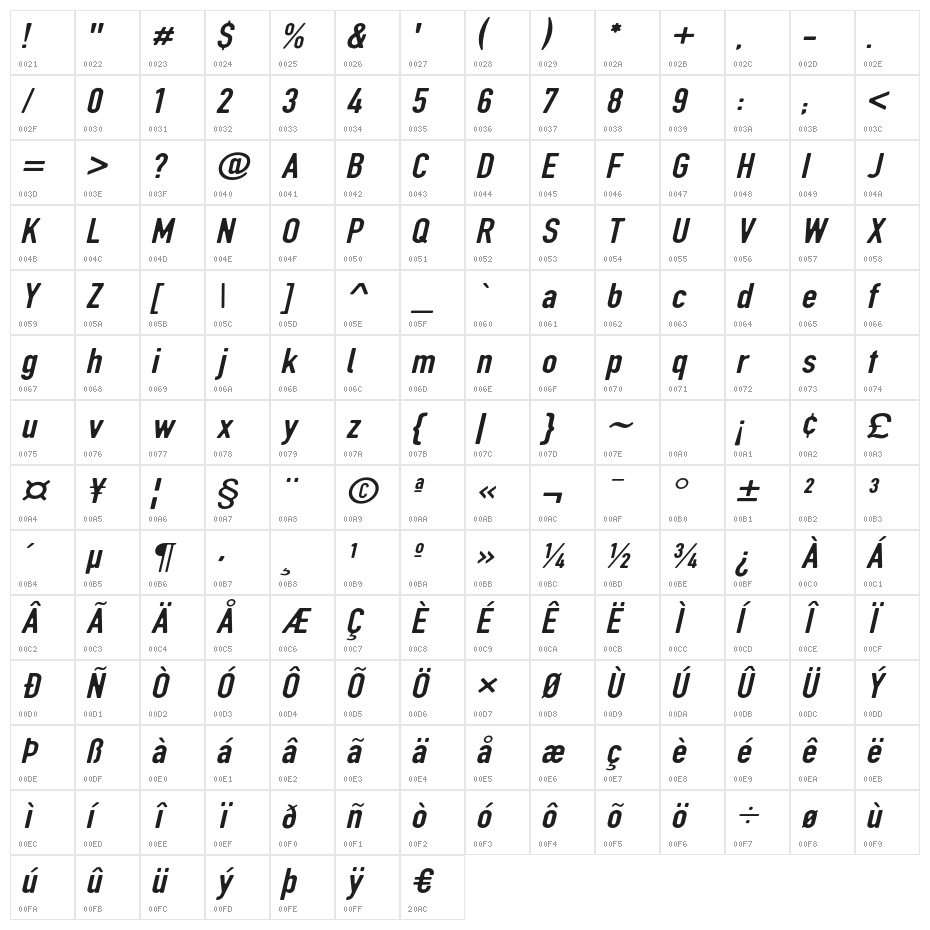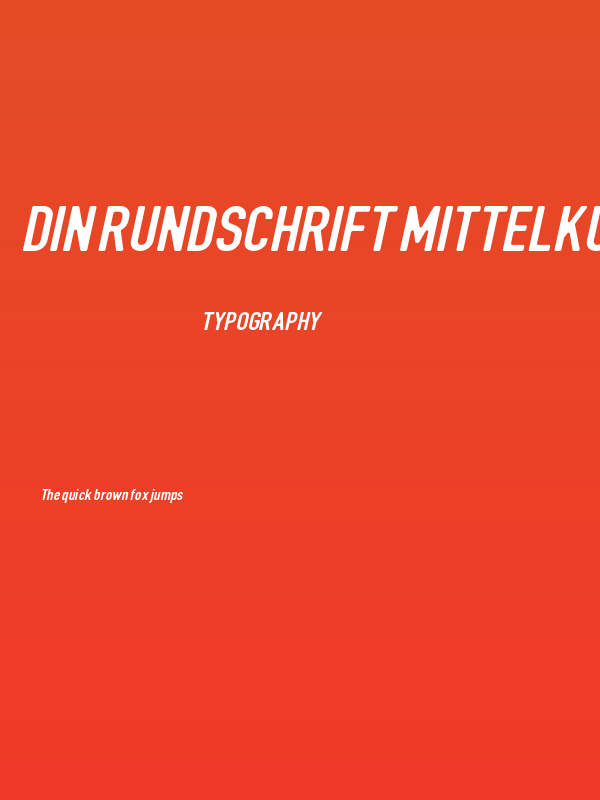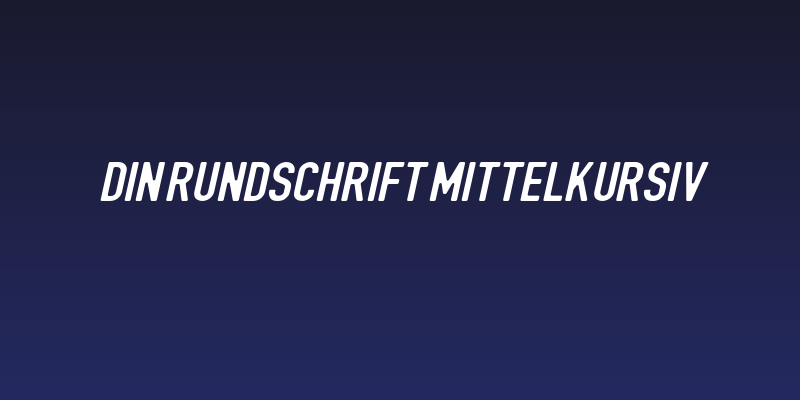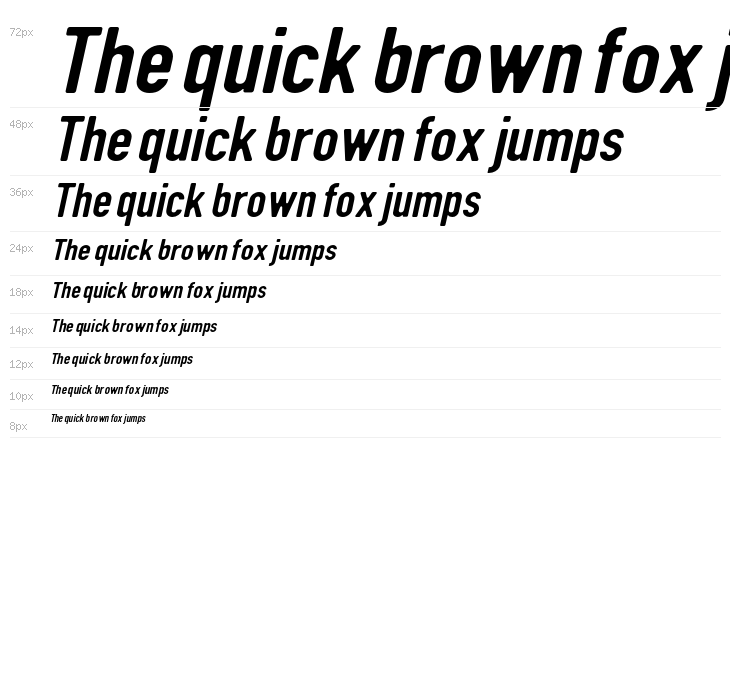
DIN Rundschrift MittelKursiv Font
DIN Rundschrift MittelKursiv Description
This font features a clean, geometric design with a slight slant, giving it a dynamic and modern appearance. The characters are bold and well-defined, with consistent stroke widths that provide a uniform look. The uppercase and lowercase letters are distinct yet harmonious, maintaining readability across various sizes. The numerals are clear and straightforward, matching the overall style of the alphabet. Special characters are included, offering versatility for different types of content. The font's structure is balanced, making it suitable for both digital and print media.
| Use Case | Headlines, Logos, Signage |
| Proposed Projects | Ideal for branding, signage, headlines, and digital interfaces where a modern and bold appearance is desired. |